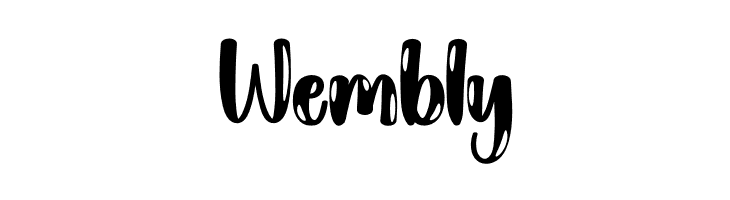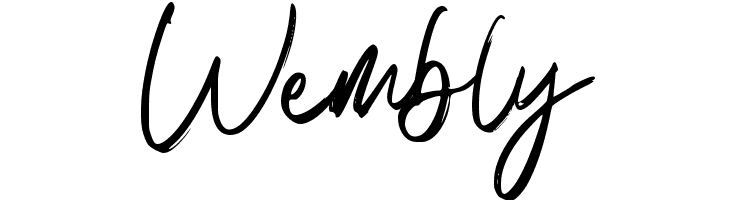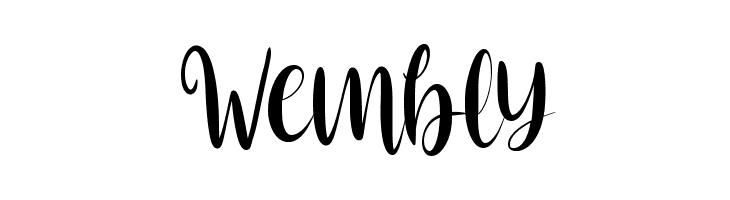
• Christmas Bloom
Bold, decorative brush script with playful swashes and high contrast.
• Christmas Blossom
A charming and elegant script font with flowing, cursive letterforms.
• Christmas Bonitha Demo
Ornate script with heart flourishes and dramatic swashes.
• Christmas Box
Hand-drawn Christmas doodle icon set.
• Christmas Break
Casual, handwritten script with tall, flowing letters and playful energy.
• Christmas Bright
A festive, cursive font with elegant loops and swirls, perfect for holiday themes.
• Christmas Bright - Personal Use
A festive, cursive font with elegant loops and swirls, perfect for holiday themes.
• Christmas Brush
Bold, hand-painted brush script with energetic strokes.
• Christmas Building
Playful, hand-drawn sans-serif with rounded, tall characters.
• Christmas Bundle
Tall, playful handwritten script with a casual, whimsical feel.
• Christmas California Demo
Bold, playful handwritten font with rounded, brush-like strokes.
• Christmas Calligraphy-Personal
Ornate calligraphic script with dramatic swashes and high contrast.
• Christmas Camp
Festive, decorative display font with snowflake accents.
• Christmas Candy Demo
A bold, playful font with rounded, festive characters ideal for holiday themes.
• Christmas Candy Demo Inline
A playful, festive font with bold, rounded characters and decorative inline elements.
• Christmas Cards xxx
A bold, playful handwritten font with rounded, consistent strokes.
• Christmas Cards xxx Italic
A bold, playful script font with a handwritten style.
• Christmas Carnival
Rounded, playful sans-serif with a hand-drawn feel.
• Christmas Carol PERSONAL Regular
An elegant, flowing script font with intricate loops and flourishes.
A decorative script font with festive star embellishments, perfect for holiday themes.
• Christmas Carol Symbols Regular
A festive decorative font featuring charming Christmas-themed symbols.